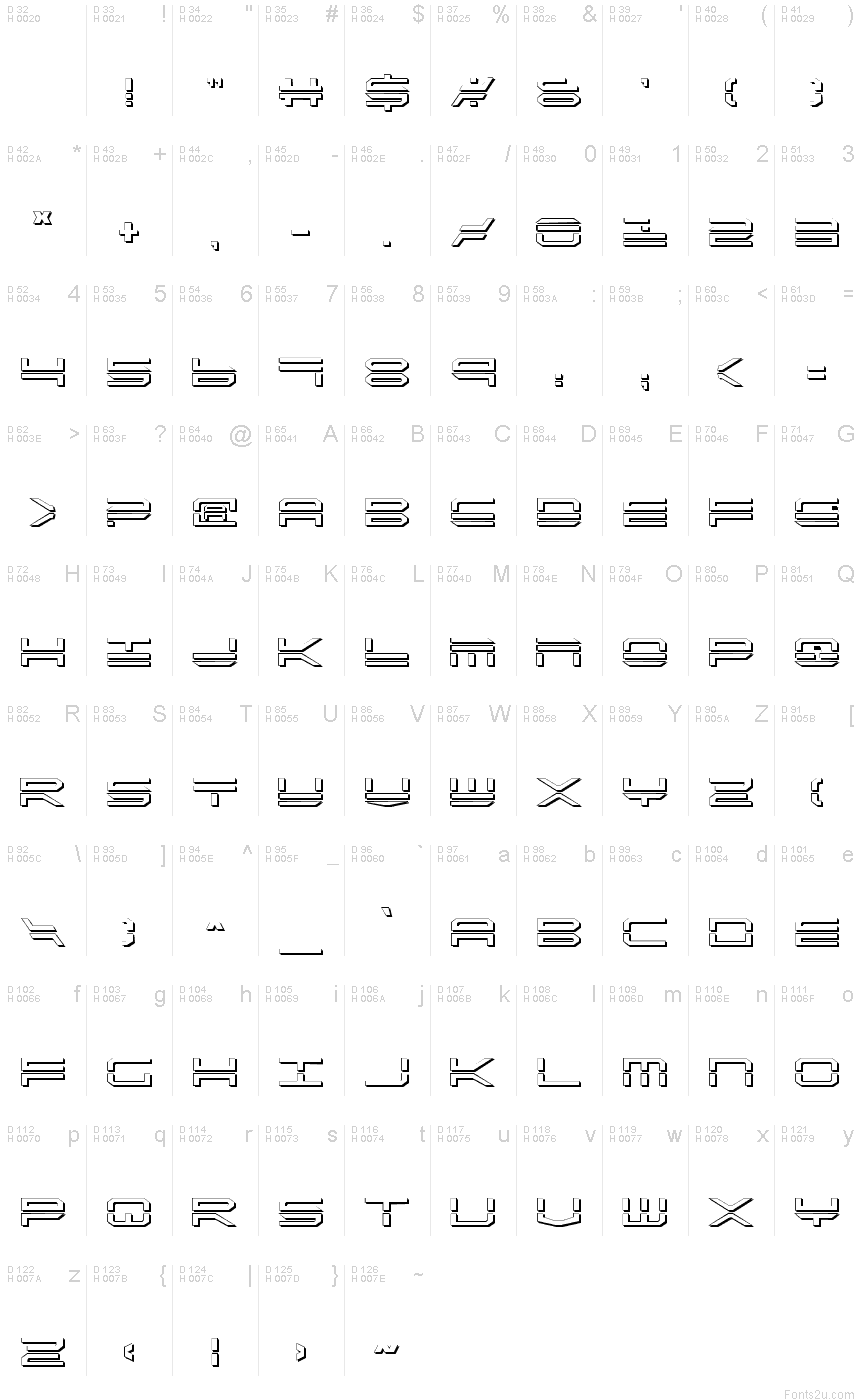
QuickStrike Shadow
QuickStrike Shadow from Iconian Fonts is a free techno 3D caps font with a hard arcade pulse and long beveled shadows. The letters feel built from chunky right angles and sloped undersides, so the alphabet reads like a stripped-down sci-fi logo rather than a neutral display set.
It fits game titles, esports graphics, poster headings, cover lines, and title cards where a free font needs instant motion without looking slick or futuristic in a generic way. Use it for short banners, badge lettering, and monograms too - the extended shadowing gives even a few caps enough shape to carry the layout.